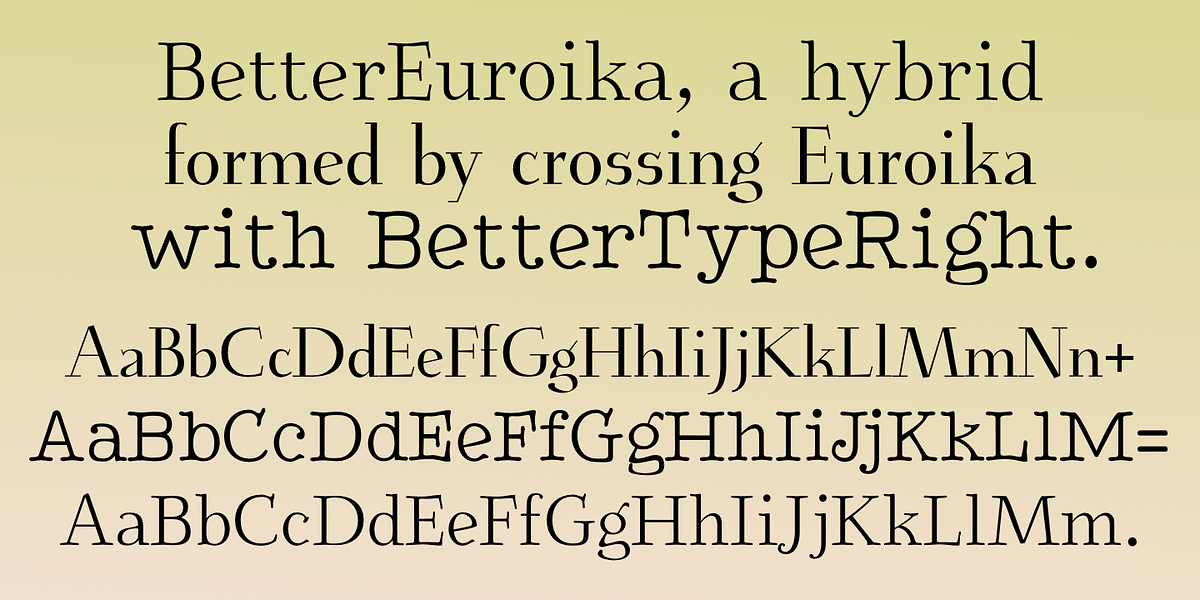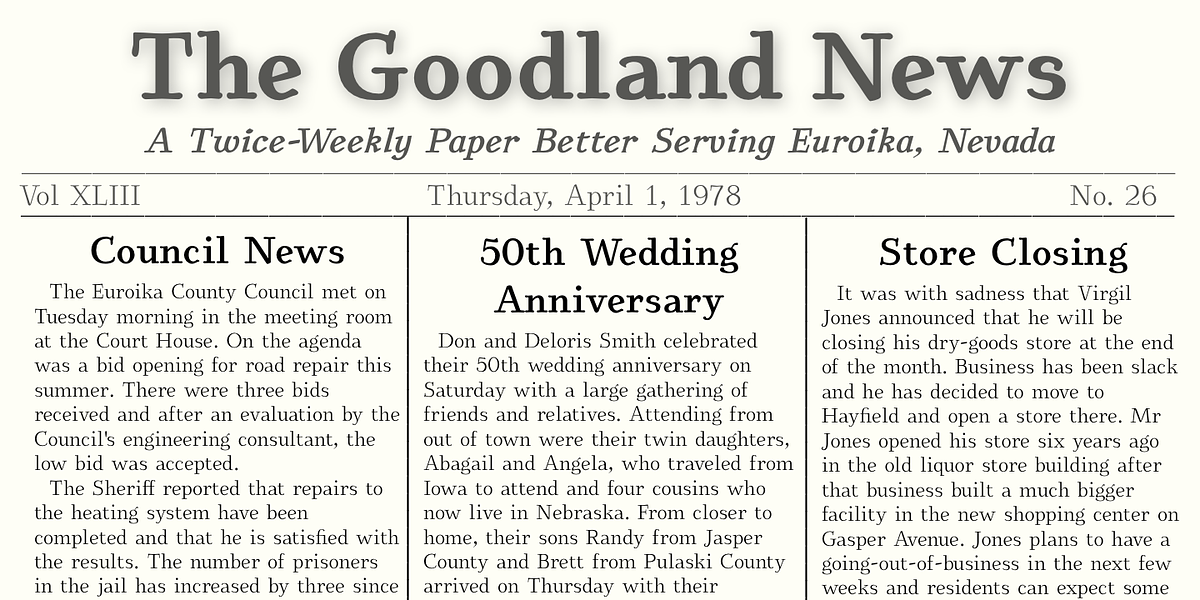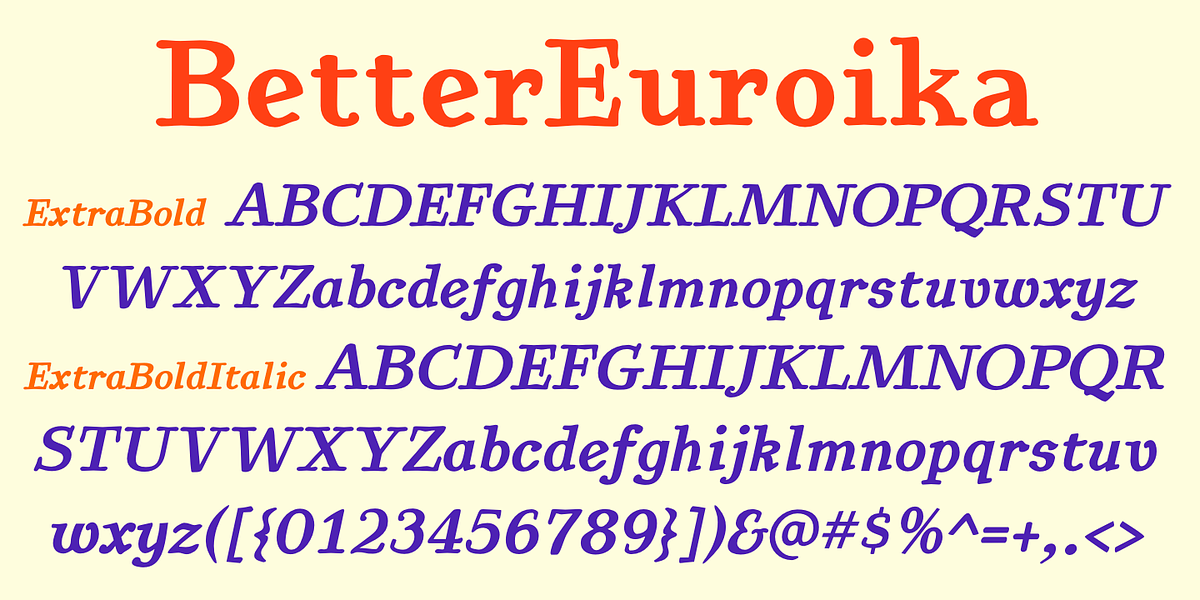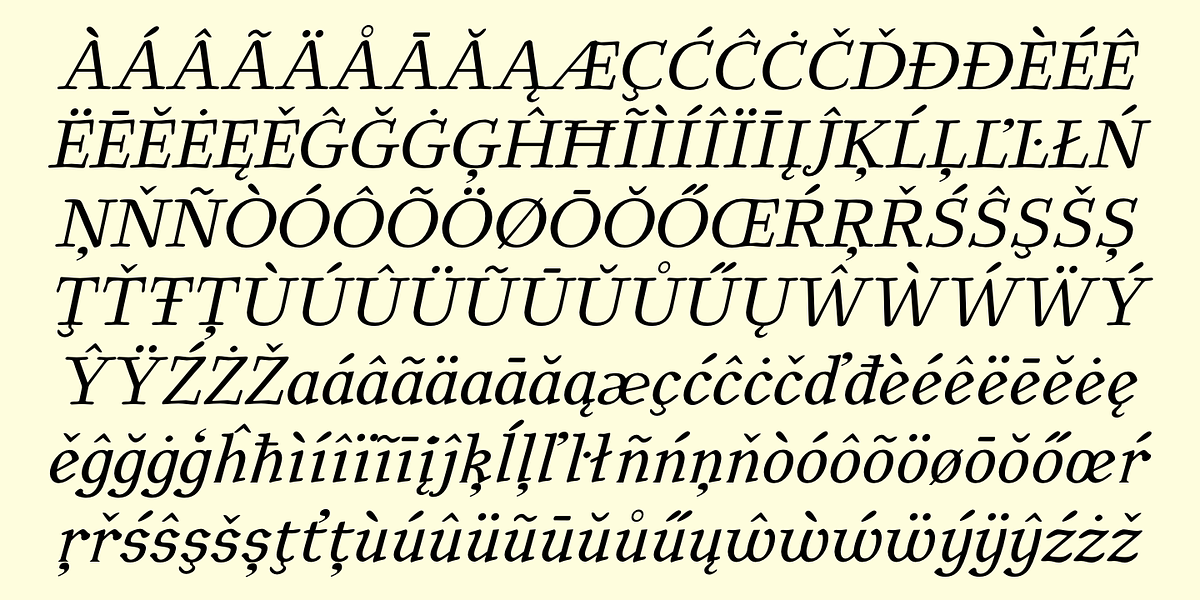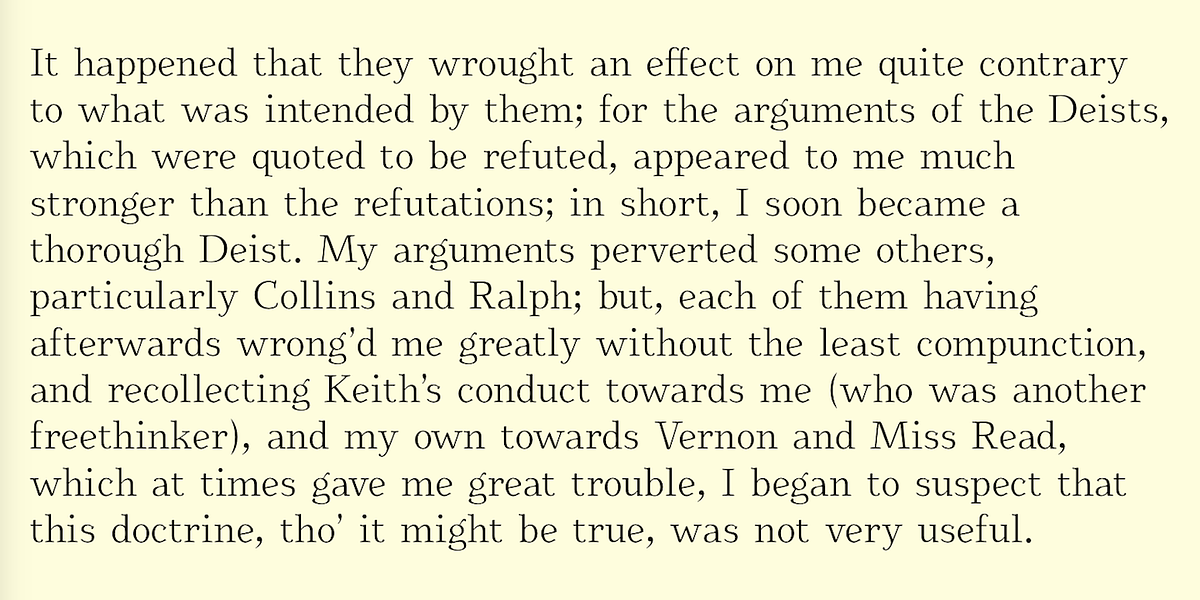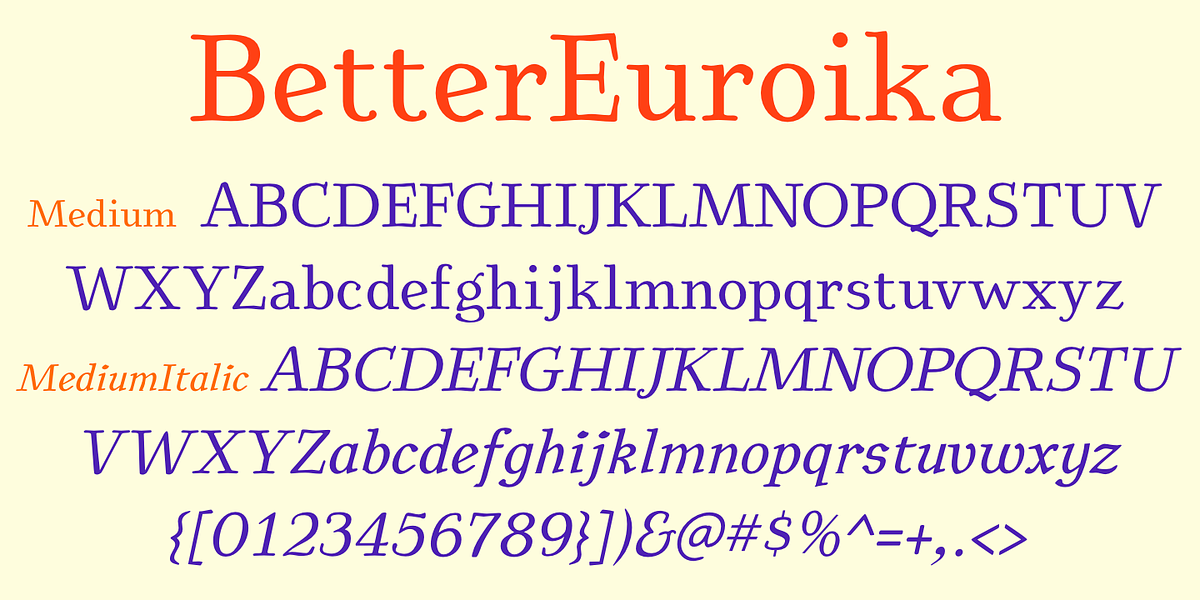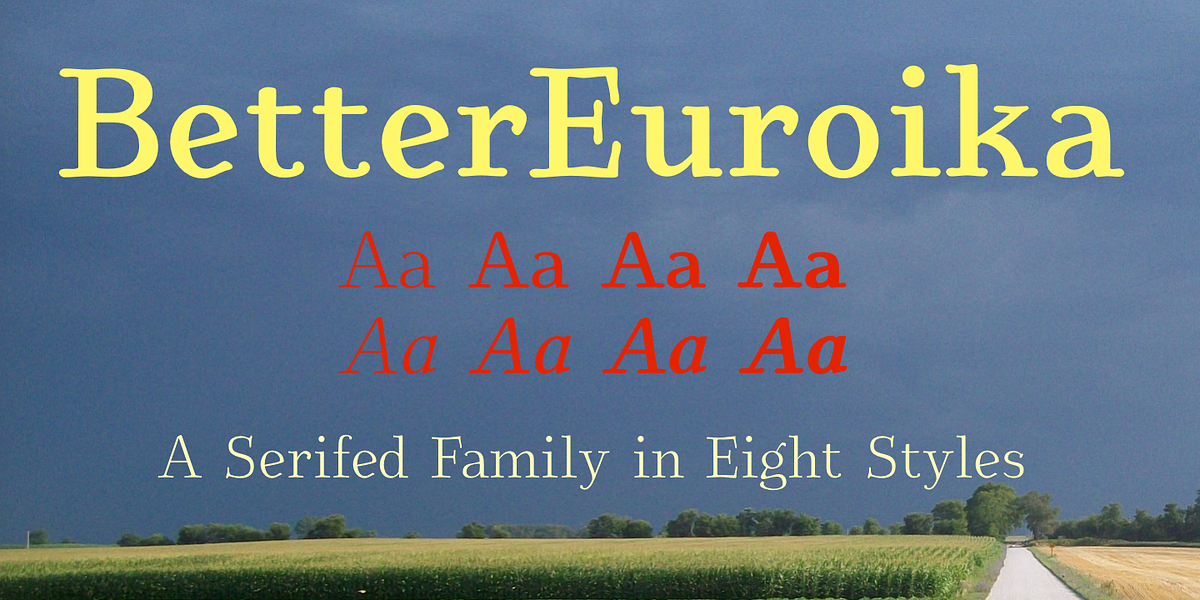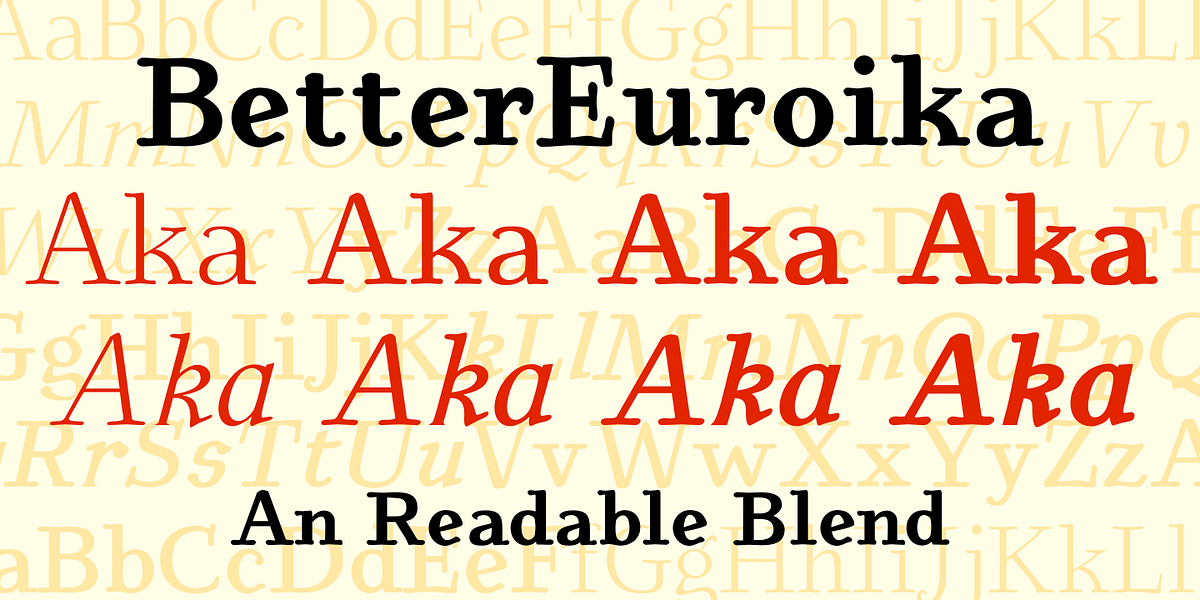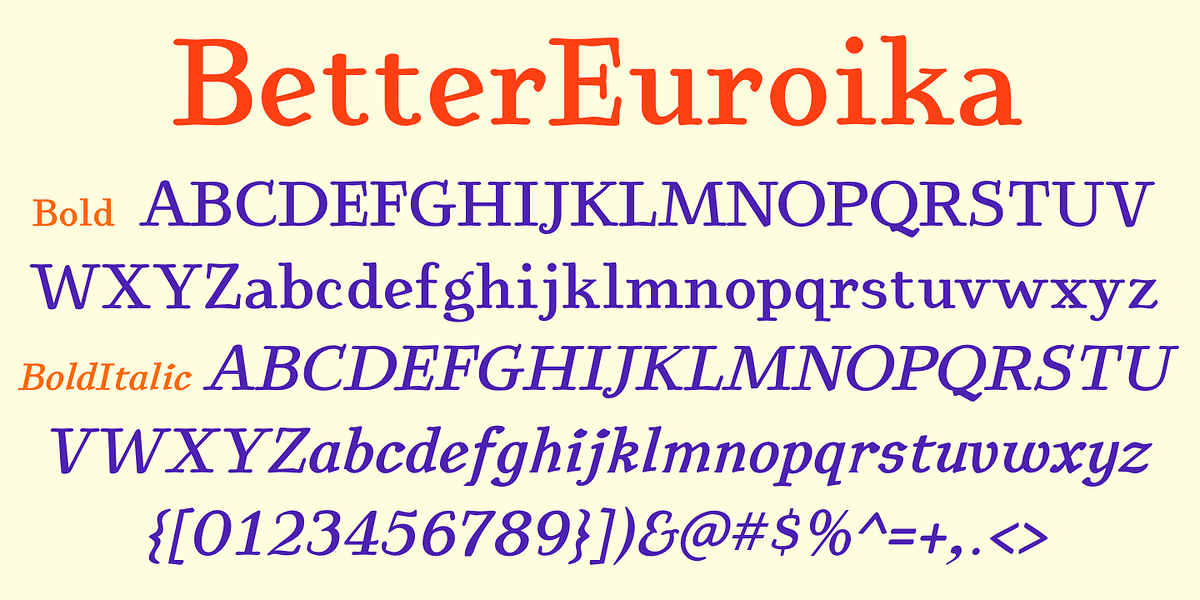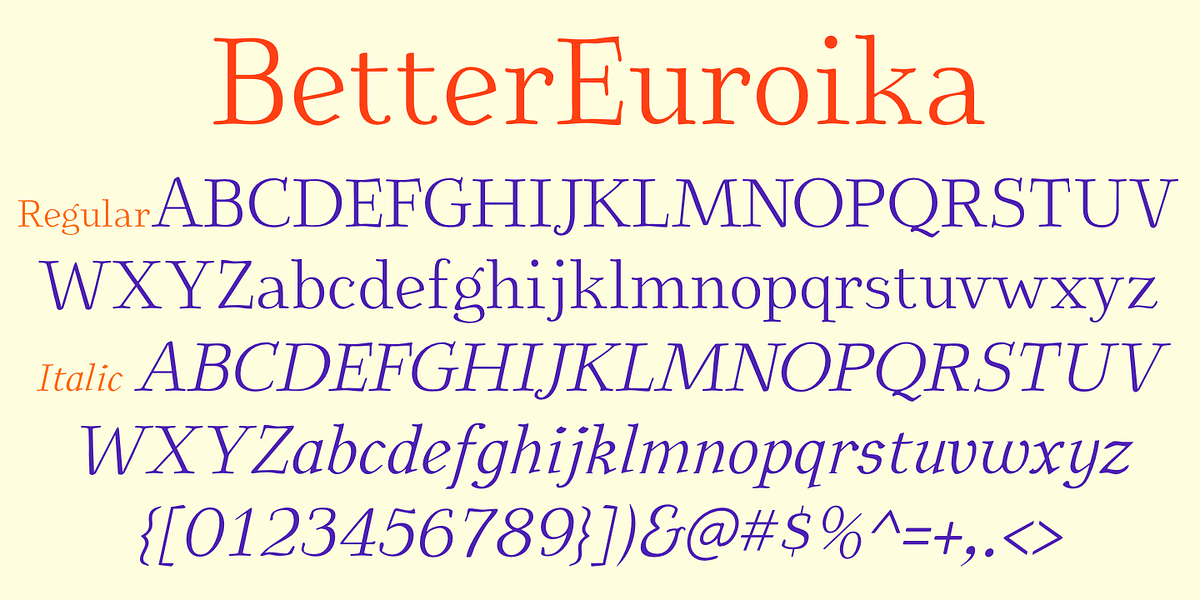
BetterEuroika
BetterEuroika is a serif font that resulted from interpolating two distinct typefaces: BetterTypeRight and Euroika. This process yielded a unique font with high contrast and round serifs. The font was updated in 2012 to refine its design. It offers four weights (regular, medium, bold, extra bold) along with italics for each weight, totaling eight styles.